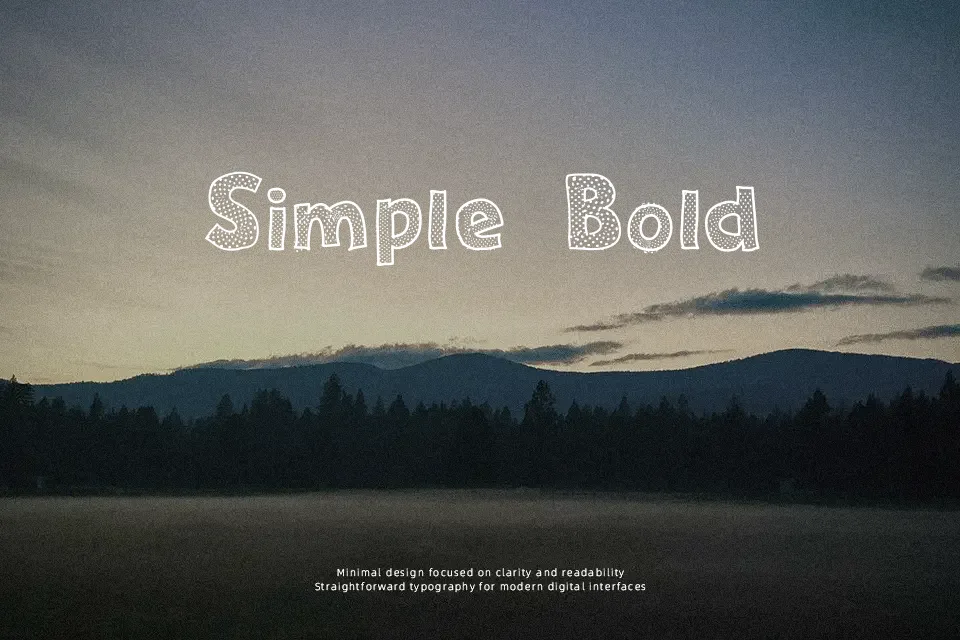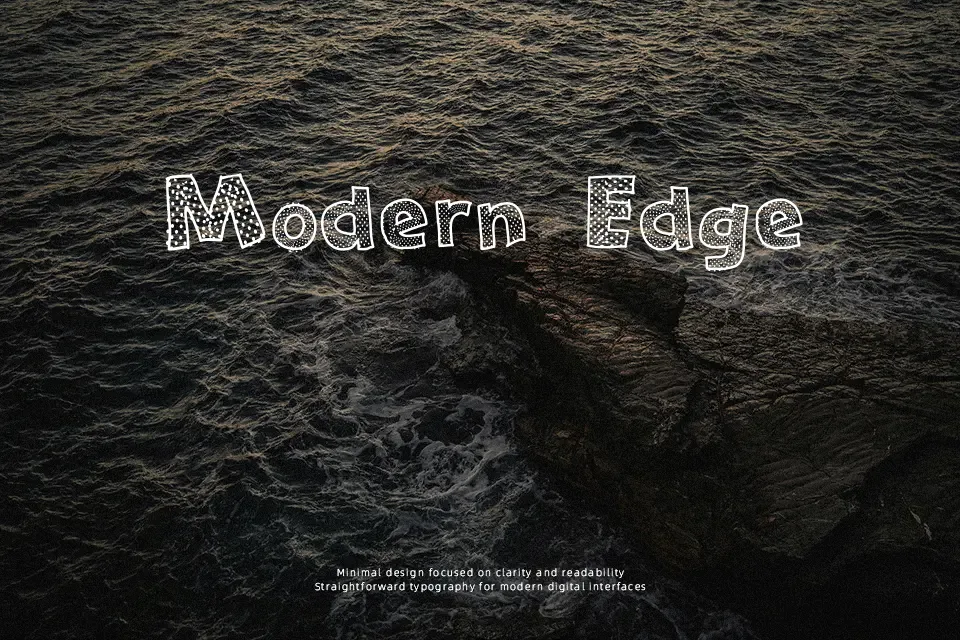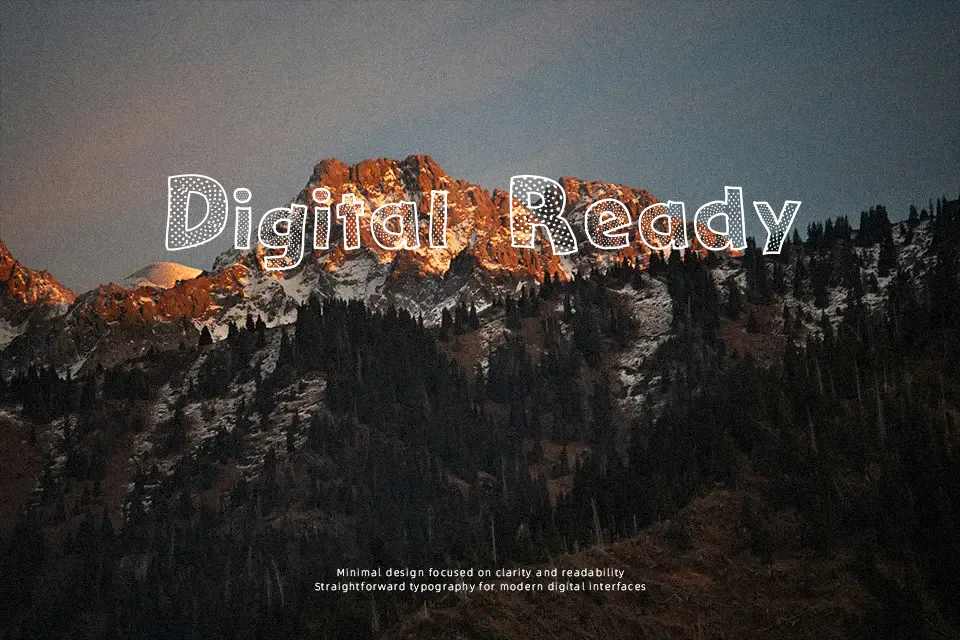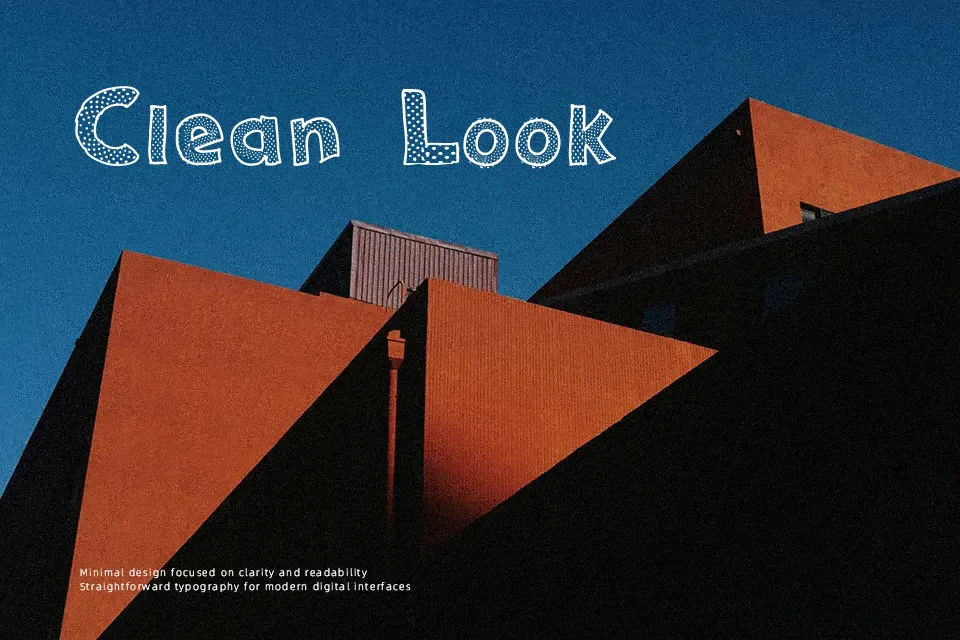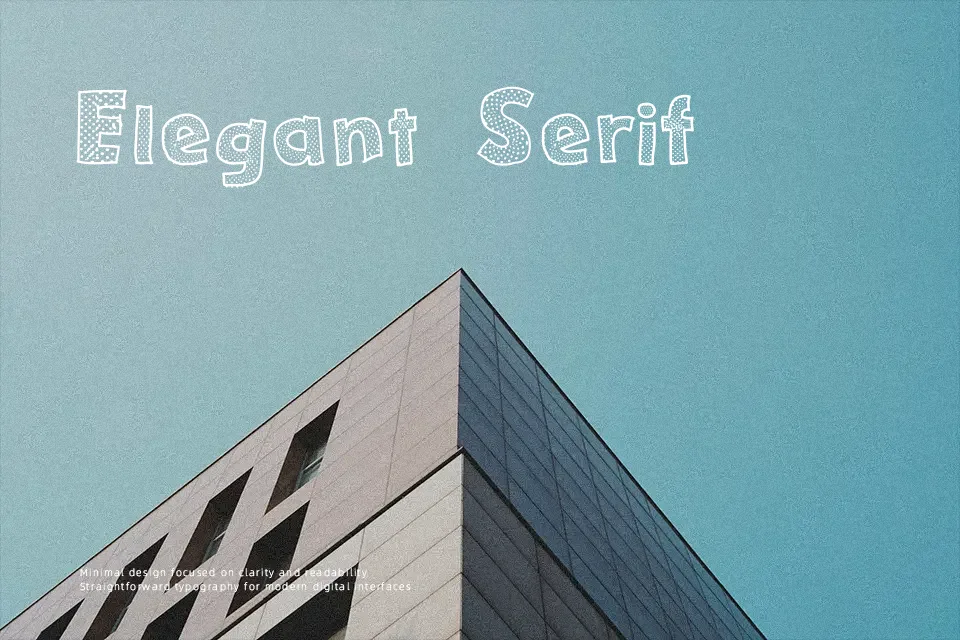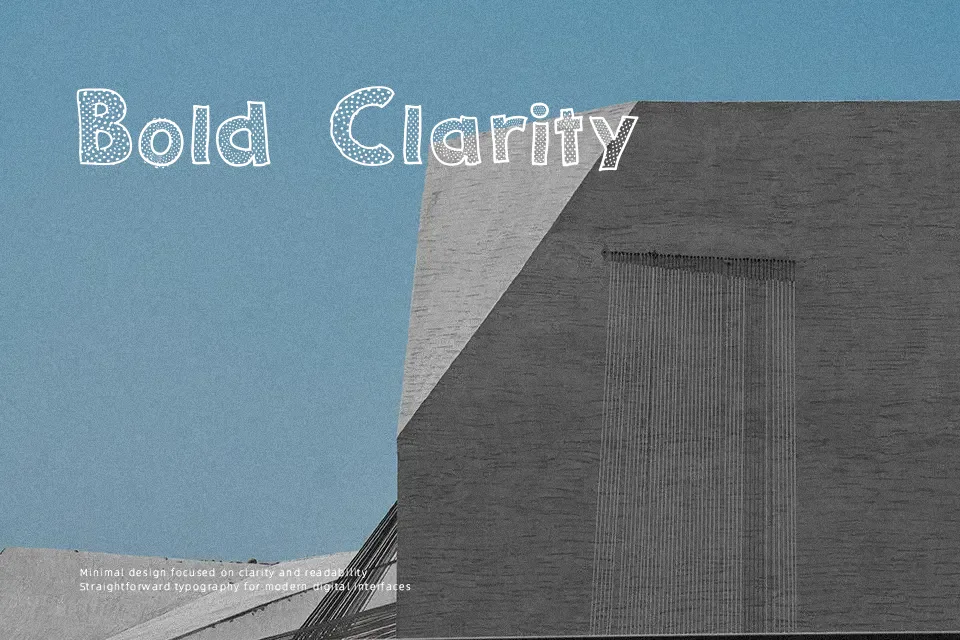
Stefanie Dots Font
Stefanie Dots Font is built around bold, rounded display letterforms filled with an eye-catching internal dot pattern. The uniform stroke weight and consistent character width provide solid structural presence, while the balanced spacing preserves shape distinction in large headlines. Visual rhythm remains lively across uppercase titles and short phrases, delivering an approachable, energetic feel. The decorative internal texture ensures high visual impact on event banners, merchandise labels, and craft packaging. However, the dense dot detailing becomes cluttered at smaller sizes, making the letterforms illegible in continuous body text. For maximum clarity, the design performs best when reserved strictly for large-scale creative displays.
Best For: children’s book titles, birthday party invitations, toy packaging labels, craft event banners
Not Ideal For: continuous body text, mobile app interfaces, formal corporate documents, dense legal paragraphs
Perfect for headline, invitation, and kids, with a bold and cartoon style.